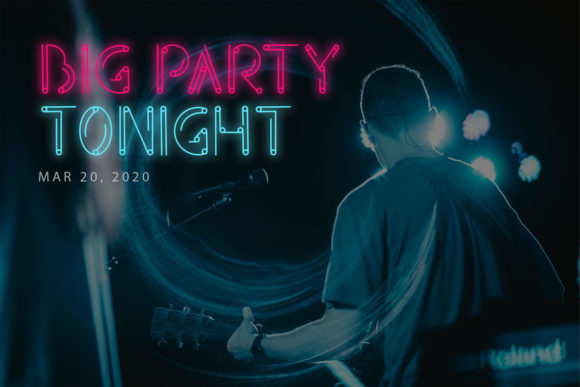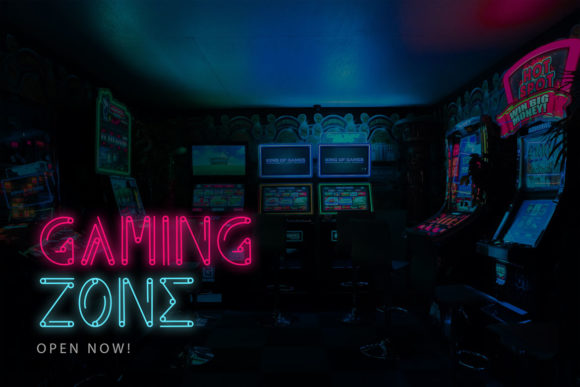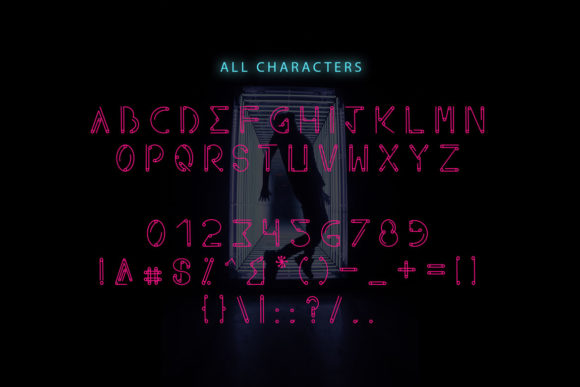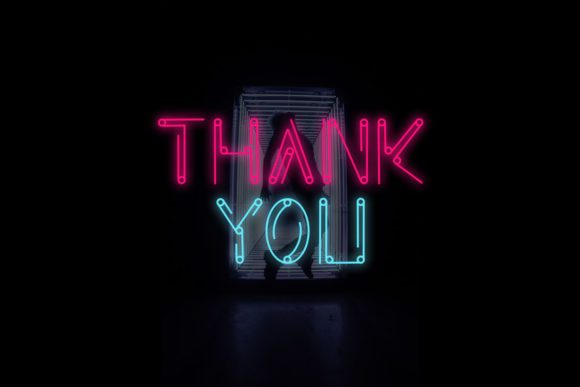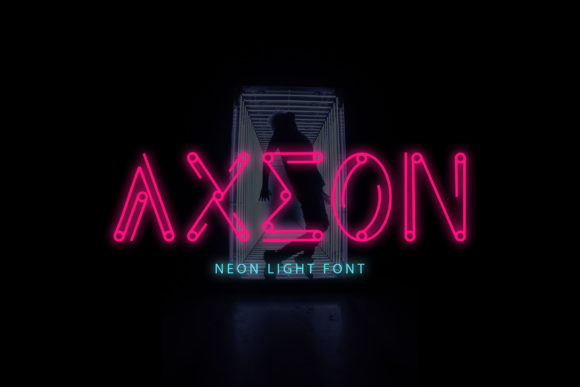
Axeon Font: The Futuristic and Neon-Styled Display Font to Elevate Your Designs
In the world of typography, fonts play a crucial role in making or breaking a design. A font can either make your project stand out or blend into the background. If you’re a designer or crafter looking for a font that can add a touch of futurism and neon-style glow to your work, look no further than Axeon Font. In this article, we’ll dive into the world of Axeon Font, exploring its features, benefits, and uses.
What is Axeon Font?
Axeon Font is a futuristic and neon-styled display font designed to make your designs pop. With its sleek and modern aesthetic, this font is perfect for creating eye-catching headlines, titles, and captions. Its unique and stylish design makes it an excellent choice for a wide range of projects, from posters and flyers to social media graphics and website headers.
Key Features of Axeon Font
Axeon Font boasts several key features that make it an excellent addition to any designer’s toolkit. Some of its notable features include:
• Futuristic and neon-style design: Axeon Font’s futuristic and neon-style design gives it a unique and eye-catching look that’s sure to grab attention.
• Stylish and unique: This font’s stylish and unique design makes it perfect for creating designs that stand out from the crowd.
• Display font: Axeon Font is a display font, making it ideal for use in headlines, titles, and captions.
• Easy to read: Despite its futuristic design, Axeon Font is easy to read, making it perfect for use in a wide range of projects.
Benefits of Using Axeon Font
So, why should you use Axeon Font in your designs? Here are just a few benefits of using this amazing font:
• Adds a touch of futurism: Axeon Font’s futuristic design adds a touch of futurism to your designs, making them perfect for projects that require a modern and sleek look.
• Grabs attention: The neon-style design of Axeon Font grabs attention and draws the eye, making it perfect for use in headlines and titles.
• Versatile: Axeon Font is versatile and can be used in a wide range of projects, from posters and flyers to social media graphics and website headers.
• Unique: Axeon Font’s unique design makes it an excellent choice for designers looking to create designs that stand out from the crowd.
Uses of Axeon Font
Axeon Font is a versatile font that can be used in a wide range of projects. Here are just a few ideas for using this amazing font:
• Posters and flyers: Use Axeon Font to create eye-catching posters and flyers that grab attention.
• Social media graphics: Add a touch of futurism to your social media graphics with Axeon Font.
• Website headers: Use Axeon Font to create sleek and modern website headers that make a lasting impression.
• Logos and branding: Axeon Font’s unique design makes it an excellent choice for use in logos and branding.
Tips for Using Axeon Font
Here are a few tips for using Axeon Font in your designs:
• Use it sparingly: Axeon Font is a bold font, so use it sparingly to avoid overwhelming your design.
• Pair it with a simple font: Pair Axeon Font with a simple font to create contrast and make your design more readable.
• Experiment with colors: Axeon Font’s neon-style design looks amazing in bright and bold colors, so experiment with different colors to find the perfect look for your design.